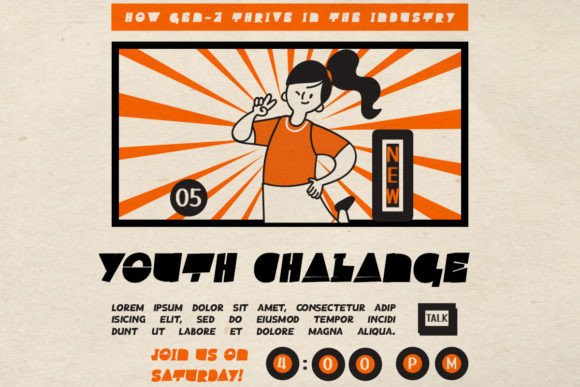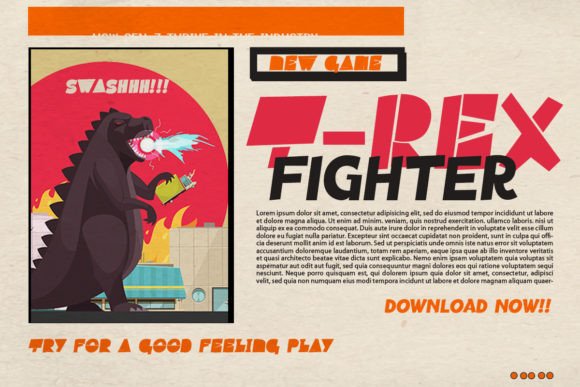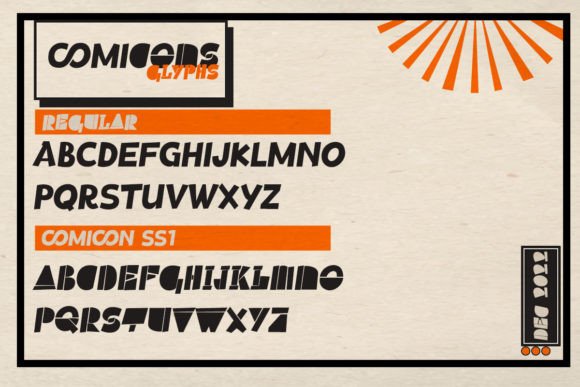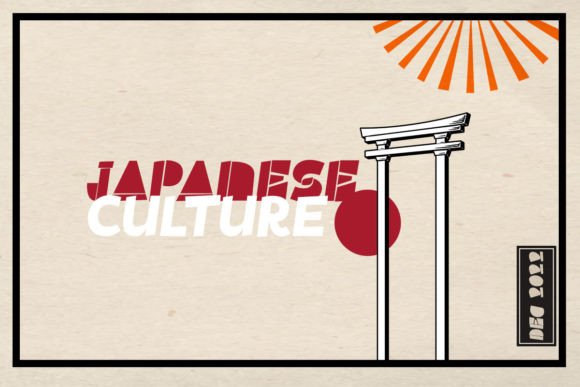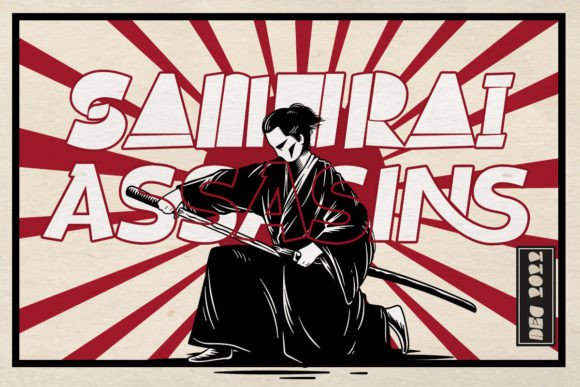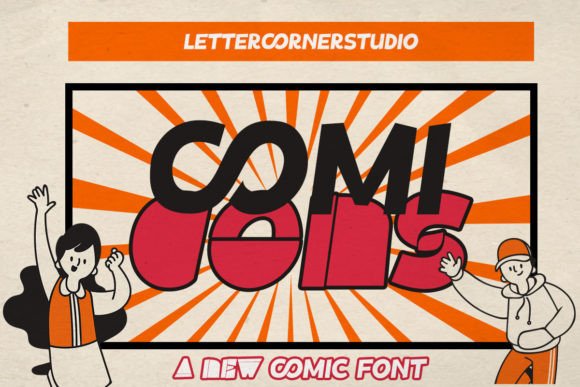
Introducing Comicons Font: The Ultimate Choice for Fun and Friendly Designs
Are you a designer, crafter, or simply a creative individual looking for a font that can add a touch of playfulness and friendliness to your projects? Look no further than Comicons Font! This delightful display font is perfect for a wide range of applications, from cartoon-related designs and children’s games to any creation that requires a lovely and approachable aesthetic.
What Makes Comicons Font So Special?
Comicons Font is a unique and charming typeface that is sure to capture the hearts of designers and crafters alike. Its fun and friendly design makes it an excellent choice for projects that require a lighthearted and approachable feel. Whether you’re working on a children’s book, a cartoon, or a game, this font is sure to bring a smile to your audience’s faces.
Key Features of Comicons Font
- Fun and Friendly Design: Comicons Font boasts a playful and approachable design that is perfect for projects that require a lighthearted touch.
- Display Font: This font is specifically designed as a display font, making it ideal for headlines, titles, and other prominent text elements.
- Cartoon-Related Designs: Comicons Font is a natural fit for cartoon-related designs, including animations, comics, and children’s shows.
- Children’s Games and Education: This font is also well-suited for children’s games, educational materials, and other projects that require a friendly and approachable aesthetic.
- Multipurpose: While Comicons Font excels in specific niches, it’s also versatile enough to be used in a wide range of other projects, from branding and advertising to packaging and more.
Why Choose Comicons Font?
So, why should you choose Comicons Font for your next project? Here are just a few compelling reasons:
- Unique and Eye-Catching: Comicons Font is a one-of-a-kind typeface that is sure to grab attention and leave a lasting impression.
- Easy to Read: Despite its playful design, Comicons Font is surprisingly easy to read, making it perfect for both digital and print applications.
- Highly Versatile: This font can be used in a wide range of projects, from digital designs to print materials, and everything in between.
- Fun and Engaging: Comicons Font is guaranteed to add a touch of fun and playfulness to your projects, making them more engaging and enjoyable for your audience.
How to Use Comicons Font
Using Comicons Font is easy! Here are a few tips to get you started:
- Pair it with Other Fonts: Comicons Font pairs well with a variety of other fonts, so feel free to experiment with different combinations to find the perfect look for your project.
- Experiment with Colors: This font looks great in a wide range of colors, so don’t be afraid to try out different hues and shades to find the perfect match for your design.
- Use it for Headlines and Titles: Comicons Font is specifically designed as a display font, making it perfect for headlines, titles, and other prominent text elements.
In conclusion, Comicons Font is a fun and friendly display font that is perfect for designers, crafters, and creatives of all kinds. Its unique and eye-catching design makes it an excellent choice for a wide range of projects, from cartoon-related designs and children’s games to branding and advertising. With its ease of use, versatility, and engaging aesthetic, Comicons Font is sure to become a go-to choice for anyone looking to add a touch of playfulness and friendliness to their designs.